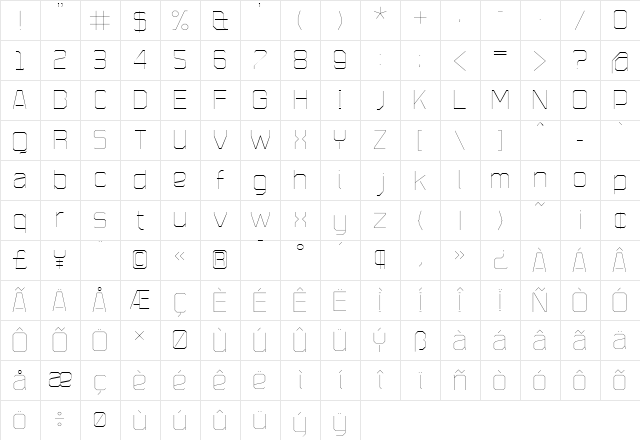
Plotta Light
Design Context for Plotta Typeface
Plotta offers clean, dependable letterforms without strong stylistic allegiance, making it a practical choice for designers who need flexibility. Its slender proportions lend an understated elegance to any composition.